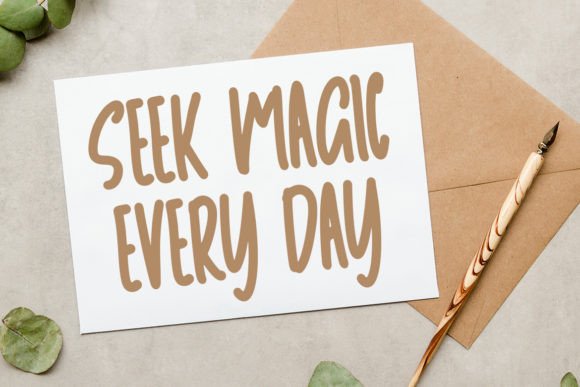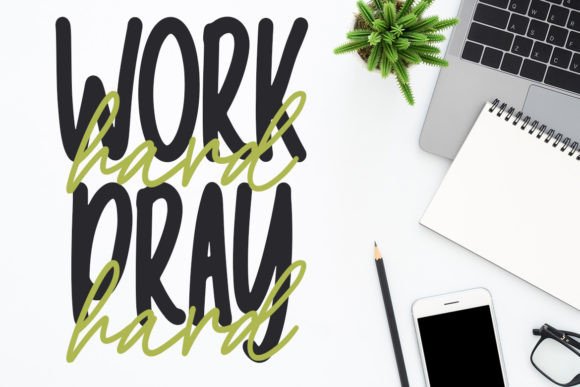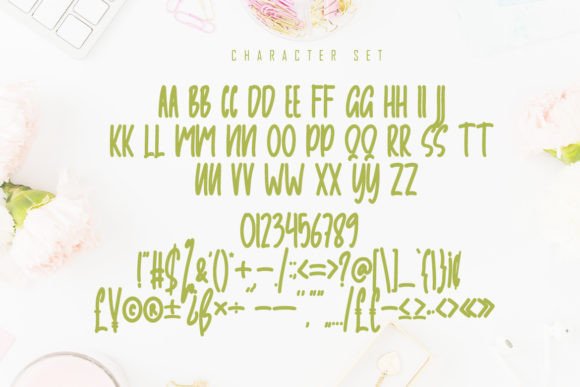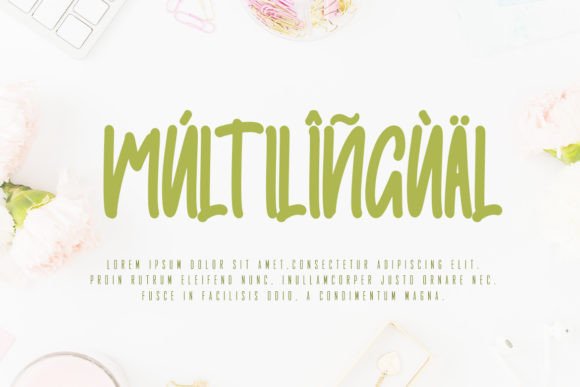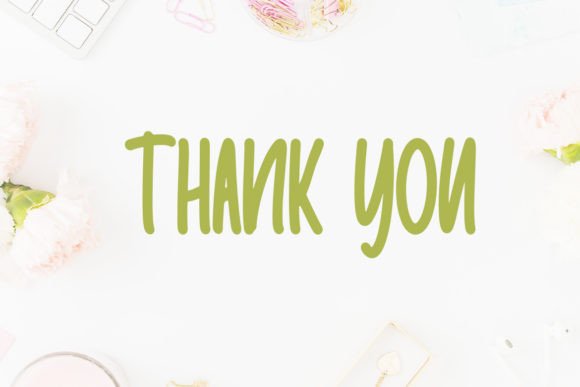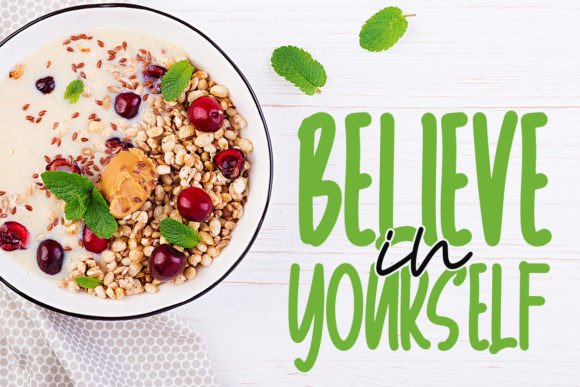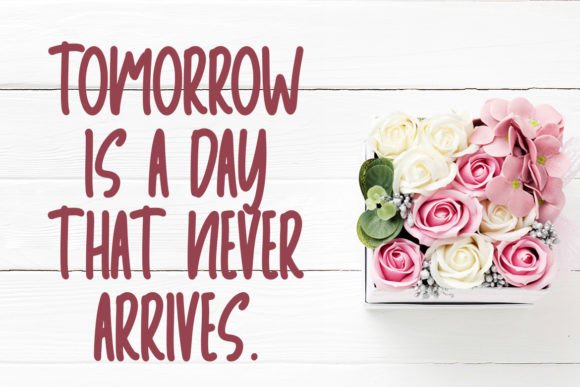
Mikulsa Font
About Mikulsa Font
Mikulsa font is a modern paint-brushed handwritten typeface designed to bring a bold and artistic vibe to your creative projects. When you download Mikulsa font, you unlock a style full of energy, confidence, and urban character, perfect for elevating headlines and logotypes.
Bold and Dynamic Brush Strokes
Mikulsa font features strong, paint-brushed strokes that give it a raw and authentic handmade look. The brush style adds movement and vibrancy, making your designs feel alive and expressive. This boldness makes Mikulsafont ideal for grabbing attention and making a powerful statement.
Perfect for Headlines and Logos
This font works especially well in headlines and logo designs where impact matters most. Mikulsafont can make your branding stand out by injecting a fresh, contemporary energy into your work. Download Mikulsafont to add a confident, urban edge to your brand identity.
Adds Urban Character to Any Design
Mikulsafont’s unique handwritten brush style brings a street-smart, artistic touch to your projects. Whether you’re designing posters, apparel, social media graphics, or product packaging, this font delivers a strong personality and modern flair.
Versatile and Stylish
Despite its boldness, Mikulsafont remains versatile. It pairs well with clean sans-serifs or minimalist fonts, allowing you to create balanced compositions. Download Mikulsafont and experiment with styles to find the perfect blend for your creative needs.